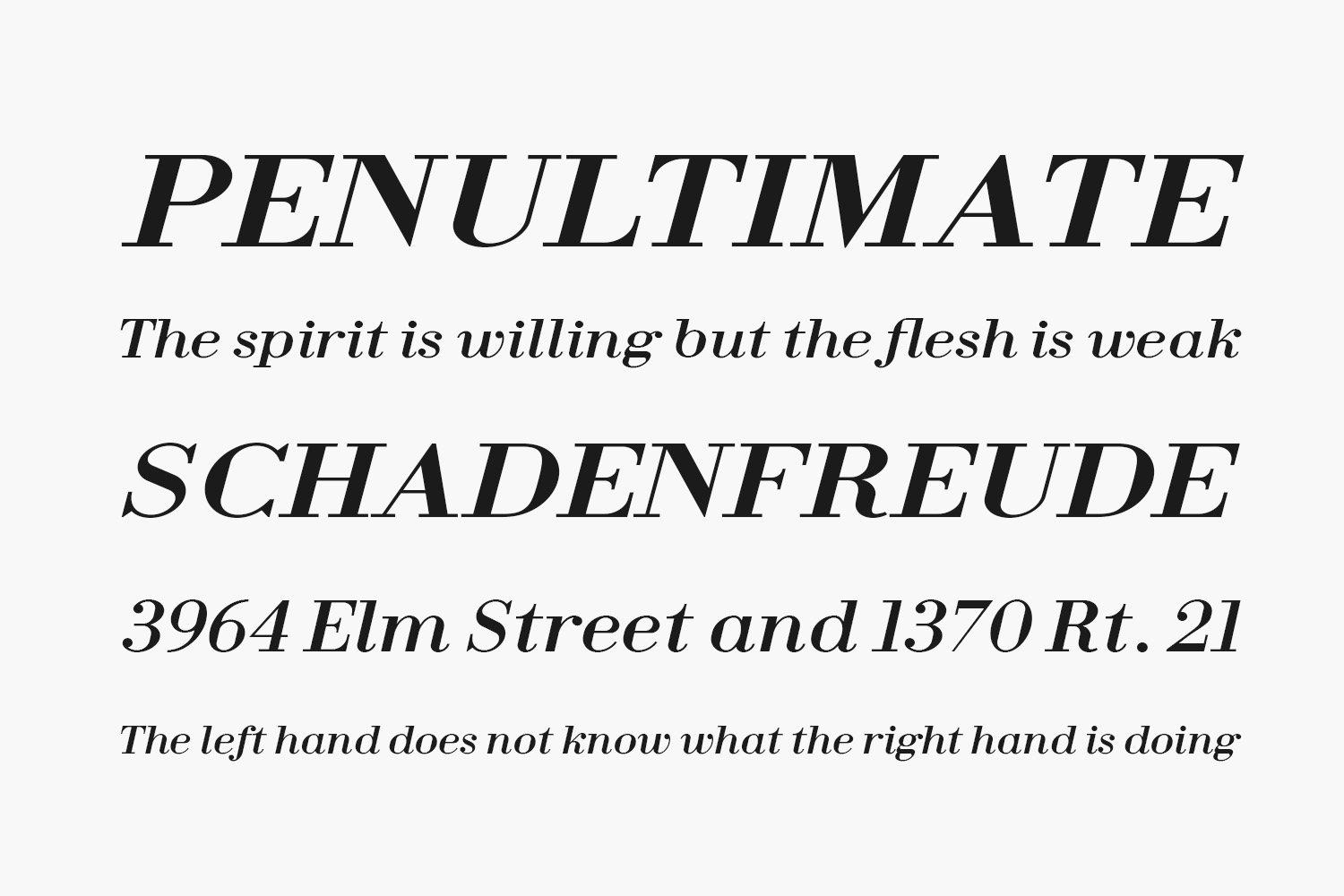
Fin Serif Display Free Font is a tribute to Bodoni and other typefaces from the Modern era, adjusted to be more readable on modern devices. was designed by J. Blake Harris and is free for personal use only. Please purchase the full version for commercial use.
Designed by J. Blake Harris